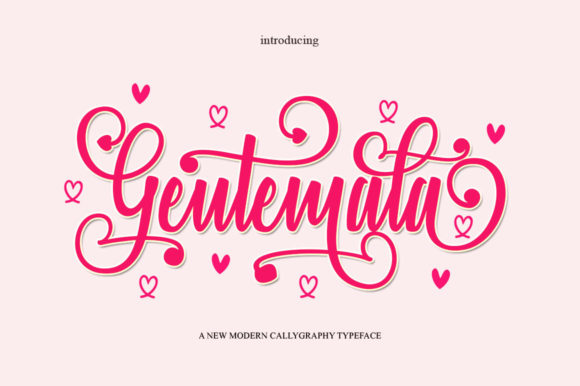
Introducing Geutemala Font: Elevate Your Designs with Elegance and Flair
In the realm of typography, fonts play a pivotal role in shaping the visual identity of a design. Among the myriad of fonts available, Geutemala stands out as a beacon of elegance and sophistication. This delicate, elegant, and flowing handwritten font has captured the hearts of designers worldwide, and for good reason. Geutemala is not just a font; it’s an artistic statement that can elevate your most creative ideas to new heights.
The Characteristics of Geutemala Font
Geutemala is characterized by its beautiful and well-balanced characters. Each letter is crafted with precision and care, exuding a sense of delicacy and refinement. The font’s flowing lines and curves create a harmonious visual experience, making it a versatile choice for a wide range of design projects. Whether you’re working on a branding campaign, a website, or a print project, Geutemala seamlessly integrates with your vision, adding a touch of elegance and sophistication.
One of the standout features of Geutemala is its versatility. It matches a wide pool of designs, from minimalist and modern to vintage and whimsical. This adaptability makes it a favorite among designers who appreciate a font that can keep up with their creative demands. Geutemala’s unique charm lies in its ability to add a personal touch to any design, making it feel more approachable and engaging.
The Benefits of Using Geutemala Font
So, what makes Geutemala an excellent choice for your design projects? Here are a few benefits that set it apart:
- Elegance and Sophistication: Geutemala brings an air of elegance and sophistication to any design, making it perfect for high-end branding, luxury products, and editorial projects.
- Versatility: Its flowing and delicate nature allows it to fit seamlessly into a variety of design aesthetics, from modern digital platforms to traditional print materials.
- Readability: Despite its elegant and cursive nature, Geutemala maintains a high level of readability, making it suitable for body text as well as headlines.
- PUA Encoding: Geutemala is PUA encoded, which means you can easily access all the glyphs and ligatures. This feature is particularly useful for designers who want to add a personal touch to their work without the hassle of complicated font management.
How to Use Geutemala Font Effectively
To make the most of Geutemala, consider the following tips:
- Pair it with Contrasting Fonts: Combine Geutemala with a sans-serif or a bold serif font to create visual interest and hierarchy in your design.
- Play with Ligatures: Take advantage of Geutemala’s ligatures to add a unique touch to your text. Ligatures can help create a more fluid and connected feel, especially in headlines and quotes.
- Adjust Line Spacing: For body text, ensure that the line spacing is adequate to enhance readability. Geutemala’s flowing nature benefits from a bit more space, making it easier on the eyes.
- Highlight Key Elements: Use Geutemala to draw attention to key elements in your design, such as quotes, testimonials, or calls to action. Its elegant appearance naturally draws the eye.
Geutemala in Digital and Print Media
Geutemala’s versatility extends across both digital and print media. In digital platforms, it can be used for website headers, social media graphics, and digital advertisements. Its elegant and modern appearance makes it perfect for brands looking to establish a strong online presence.
In print media, Geutemala shines in editorial projects such as magazines, brochures, and books. Its readability and aesthetic appeal make it an excellent choice for both body text and headlines. Additionally, it can be used in branding and packaging to add a touch of sophistication and luxury.
Geutemala font is more than just a typeface; it’s a design element that can transform your creative projects. Its delicate, elegant, and flowing nature, combined with its versatility and readability, makes it an invaluable asset for designers. Whether you’re aiming for a modern, minimalist look or a vintage, whimsical feel, Geutemala can help you achieve your design goals with style and sophistication.
By incorporating Geutemala into your design toolkit, you’re not just adding a font; you’re embracing a design philosophy that values elegance, creativity, and attention to detail. So, add Geutemala to your projects and watch as it brings your most creative ideas to life in ways you never thought possible.